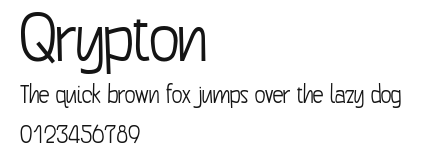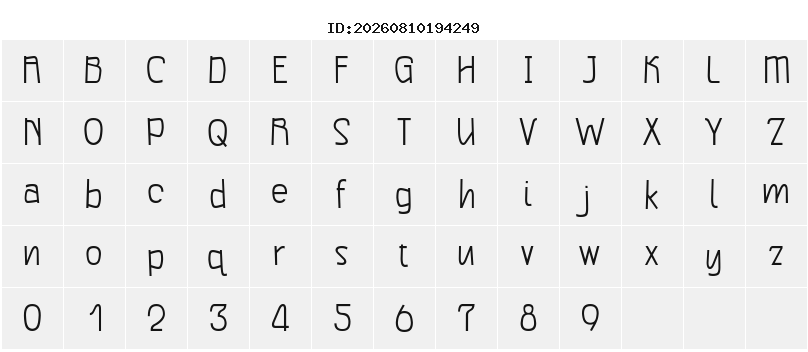
• Font Name: Qrypton
• Designer: Joanne Taylor
About Qrypton.otf
Qrypton.otf is a modern, elegant sans-serif font designed for ultimate readability and visual harmony. Perfect for branding, headlines, web design, and print materials.